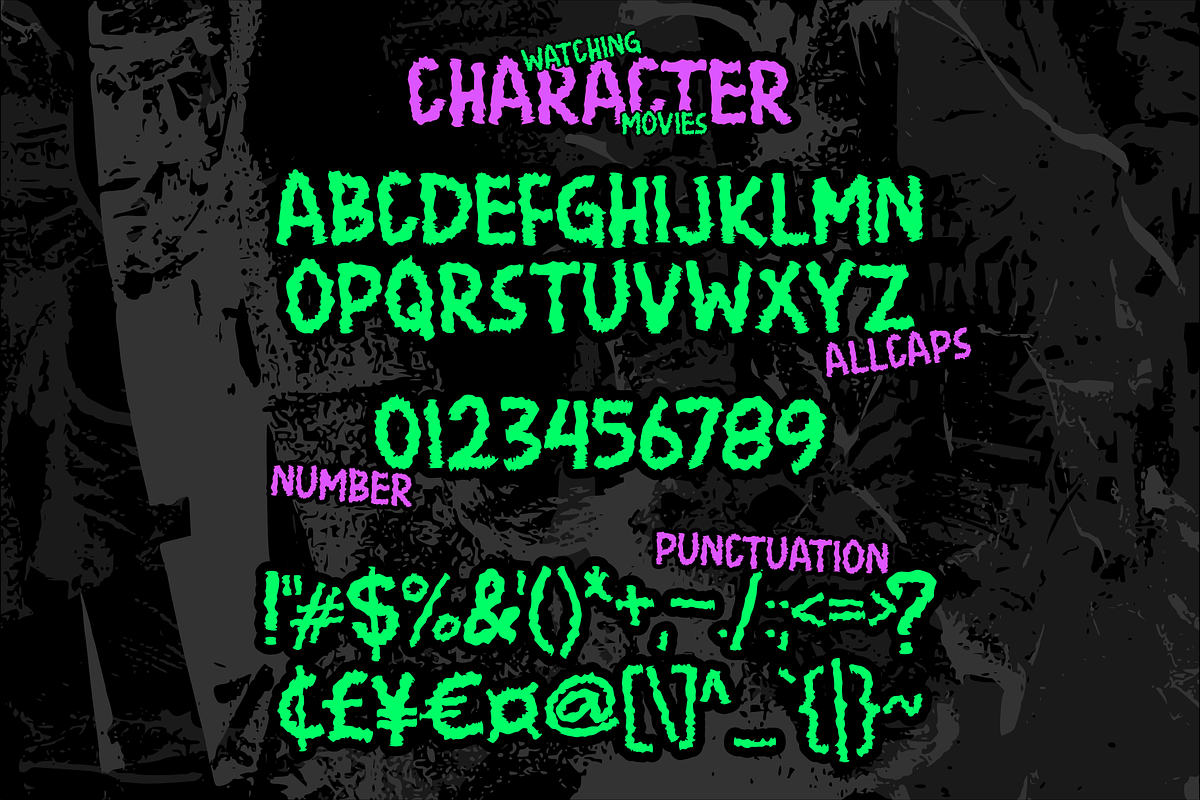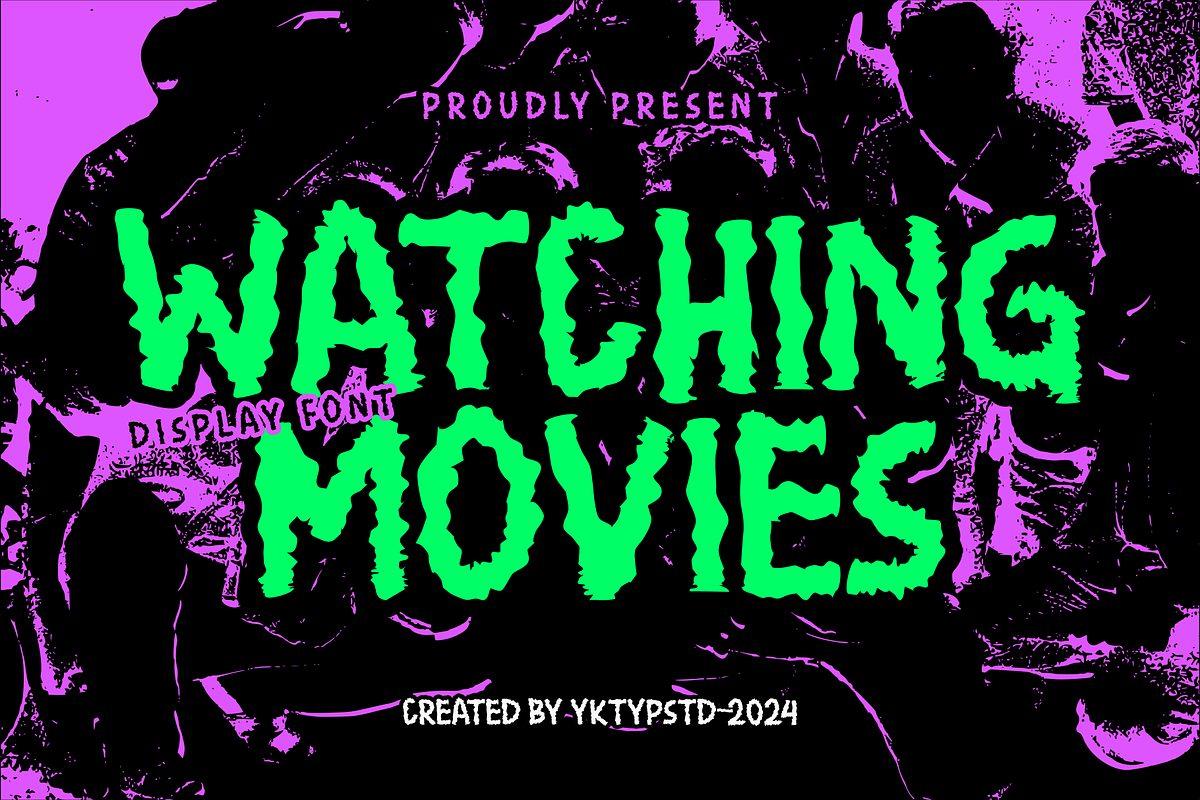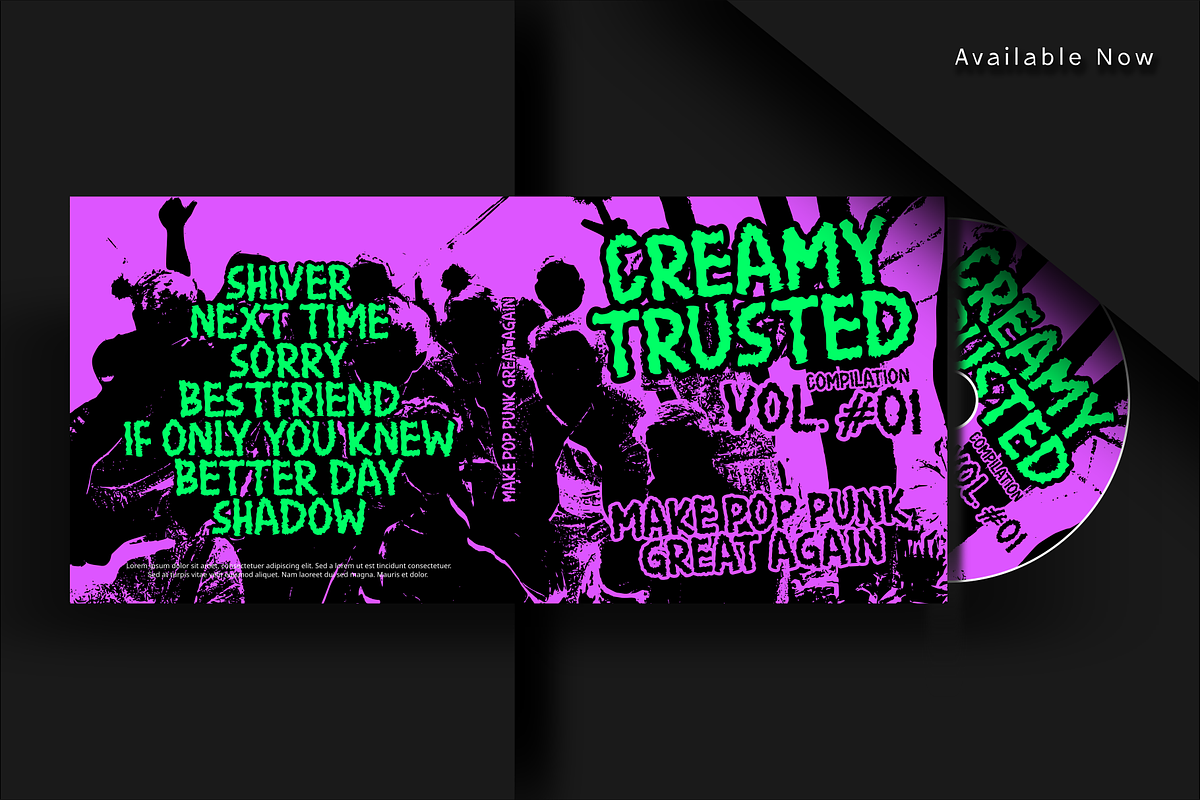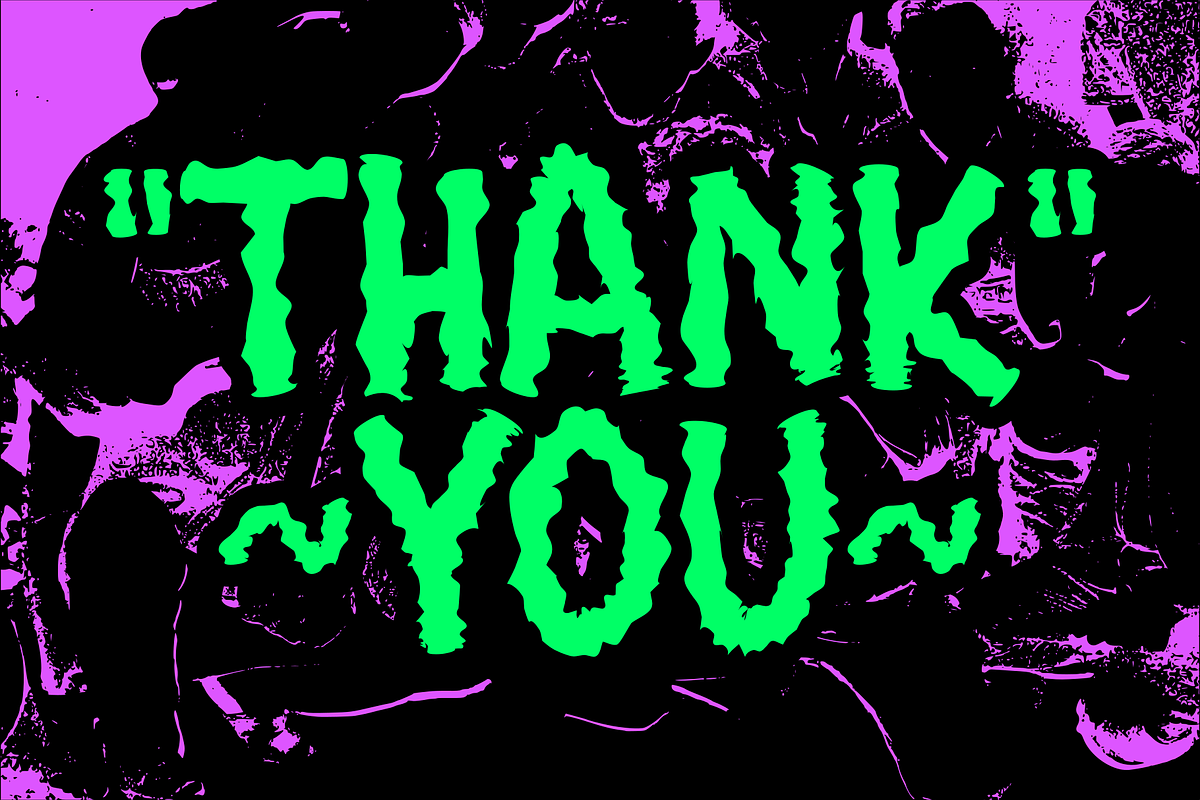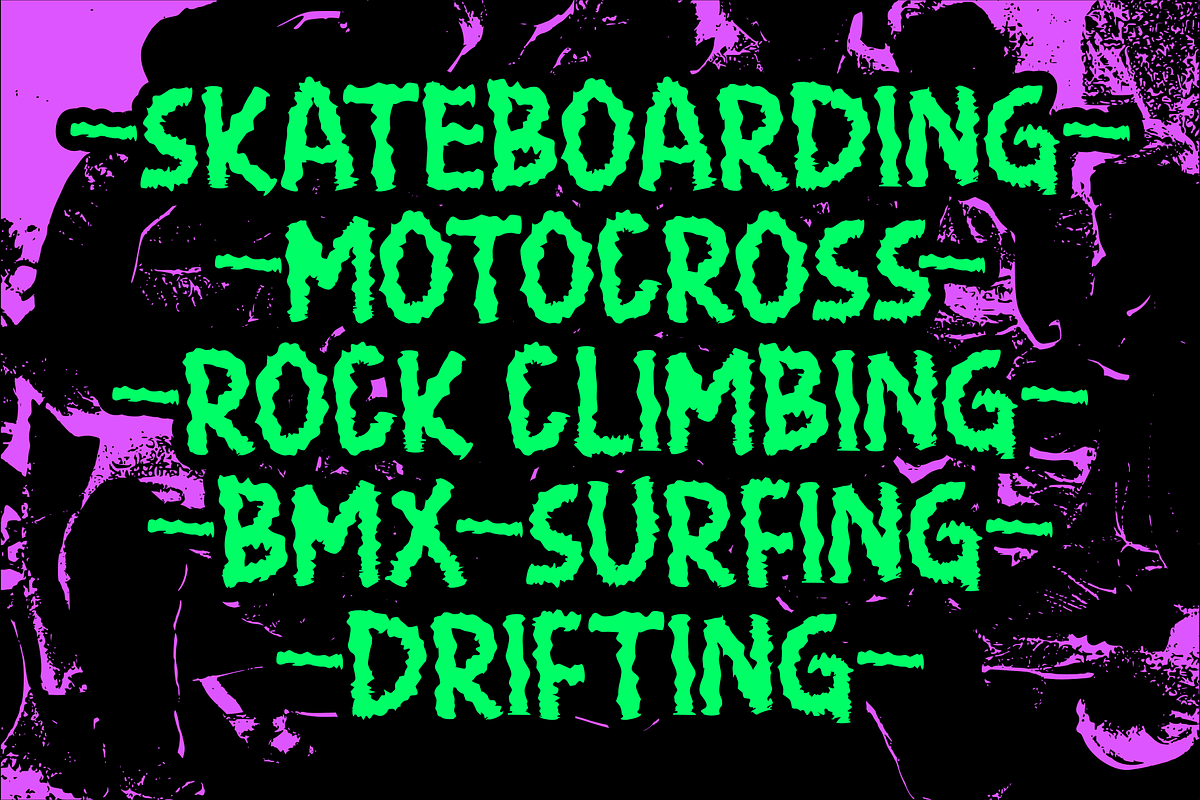
Watching Movies
Presenting the Watching Movies font - a visual treat that will enhance your design, bringing it one step closer to perfection. This font caters particularly to those crafting contemporary art forms, especially in the melodious realm of music. It's the perfect match for album covers, poster designs, Music magazine headlines, merchandise, apparel, and any other items sporting a celebratory theme. The 'Watching Movies' font will truly bring your project to life and saturate it with character.
- All Caps Character (A-Z)